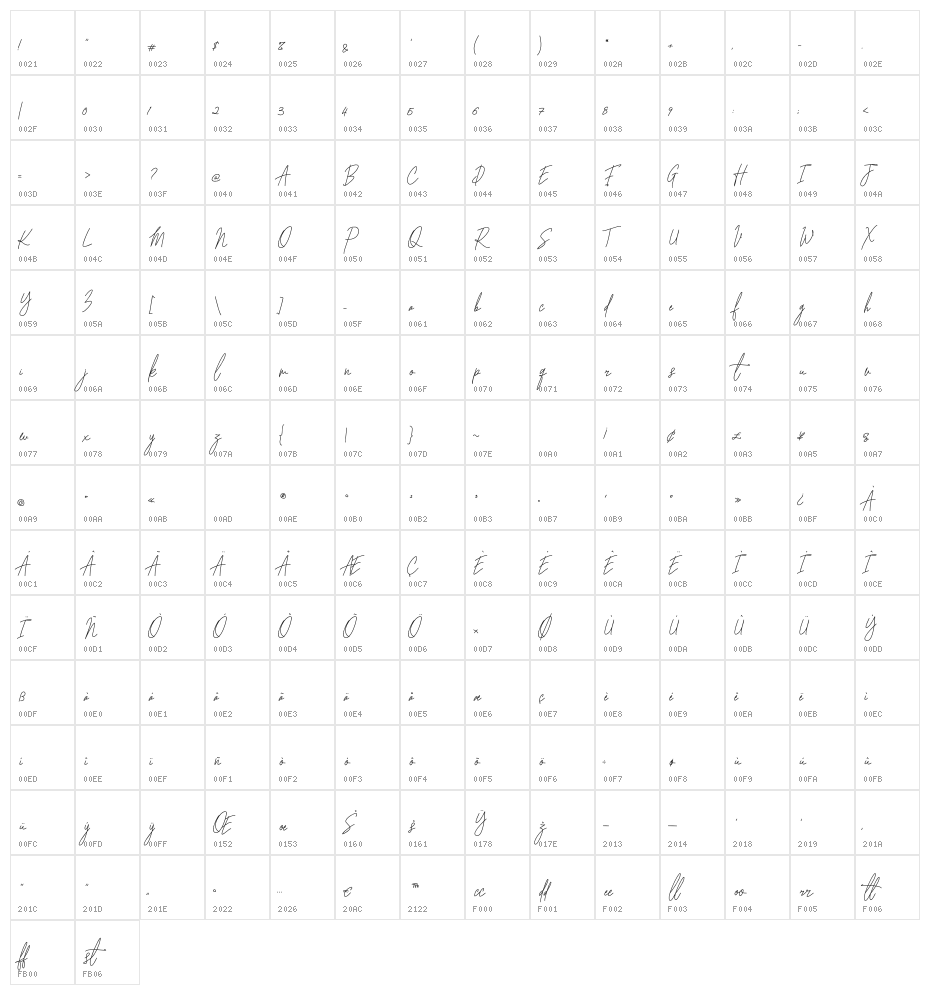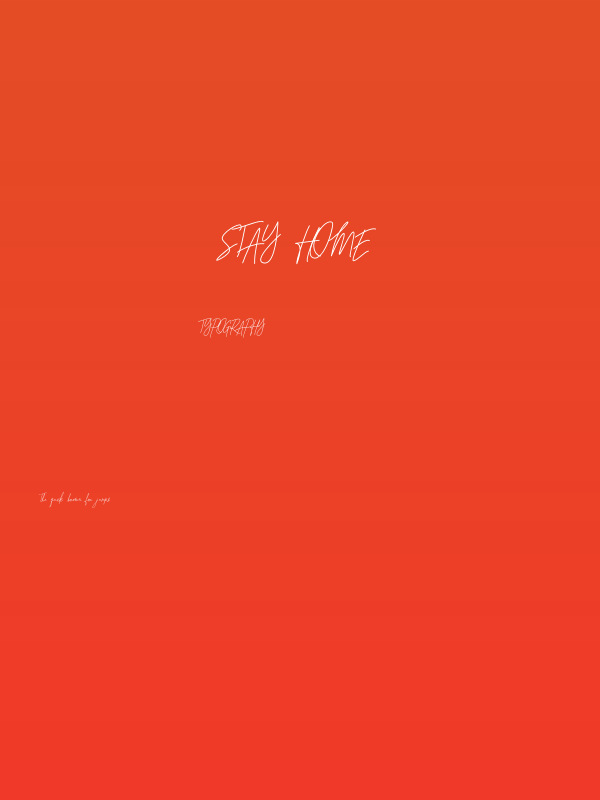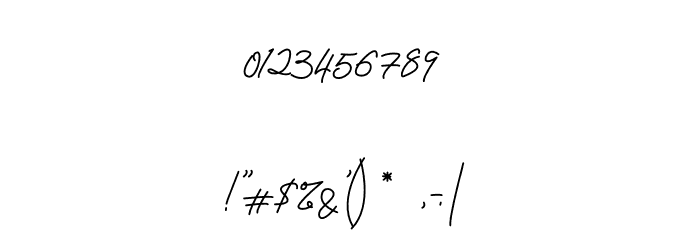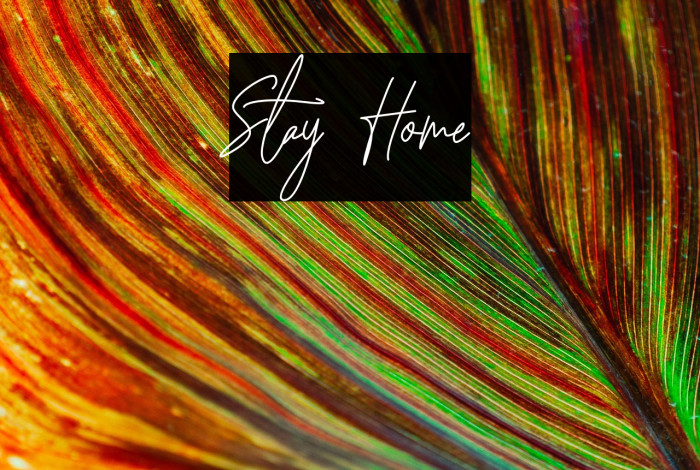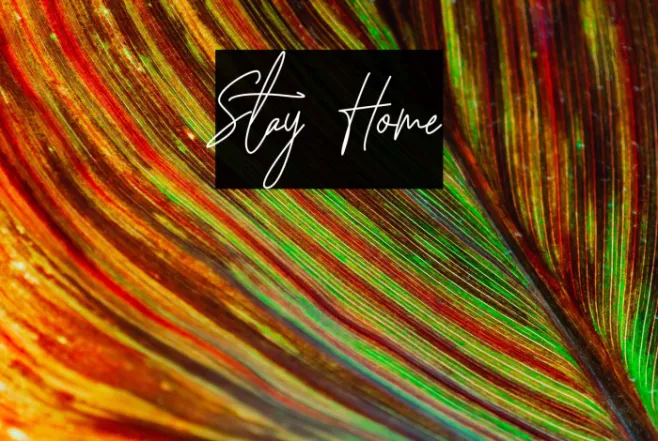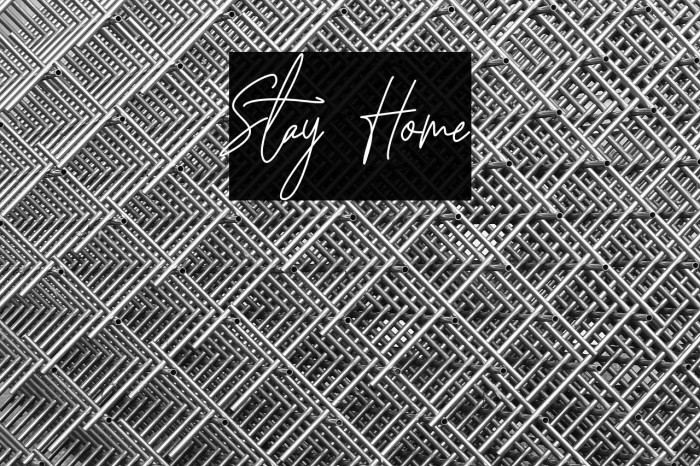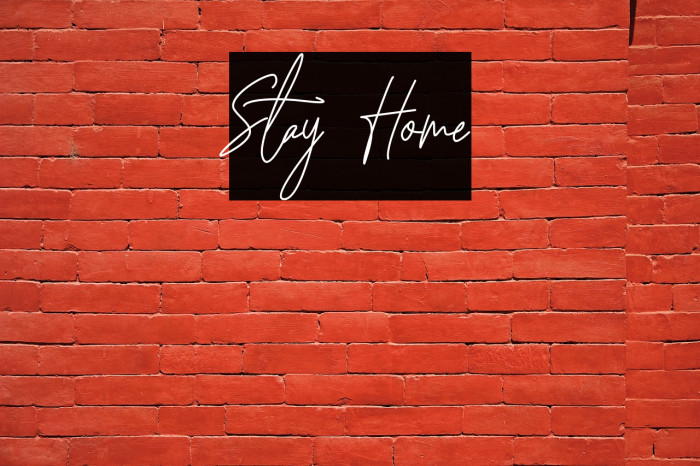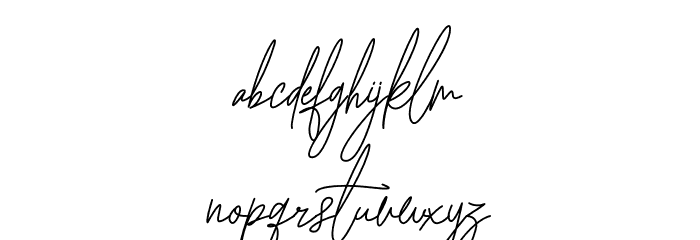
Stay Home Font
Stay Home Description
This font exudes a casual yet elegant handwritten style, characterized by its flowing, cursive script. The letters are connected with smooth, sweeping strokes, giving it a natural and personal touch. The uppercase letters are slightly more elaborate, with extended loops and curves, while the lowercase letters maintain a consistent, flowing rhythm. The numbers and special characters complement the alphabet with a similar handwritten flair. This font is perfect for projects that require a personal, intimate feel, such as invitations, greeting cards, or personal branding. Its unique style makes it stand out, adding a touch of sophistication and warmth to any design.